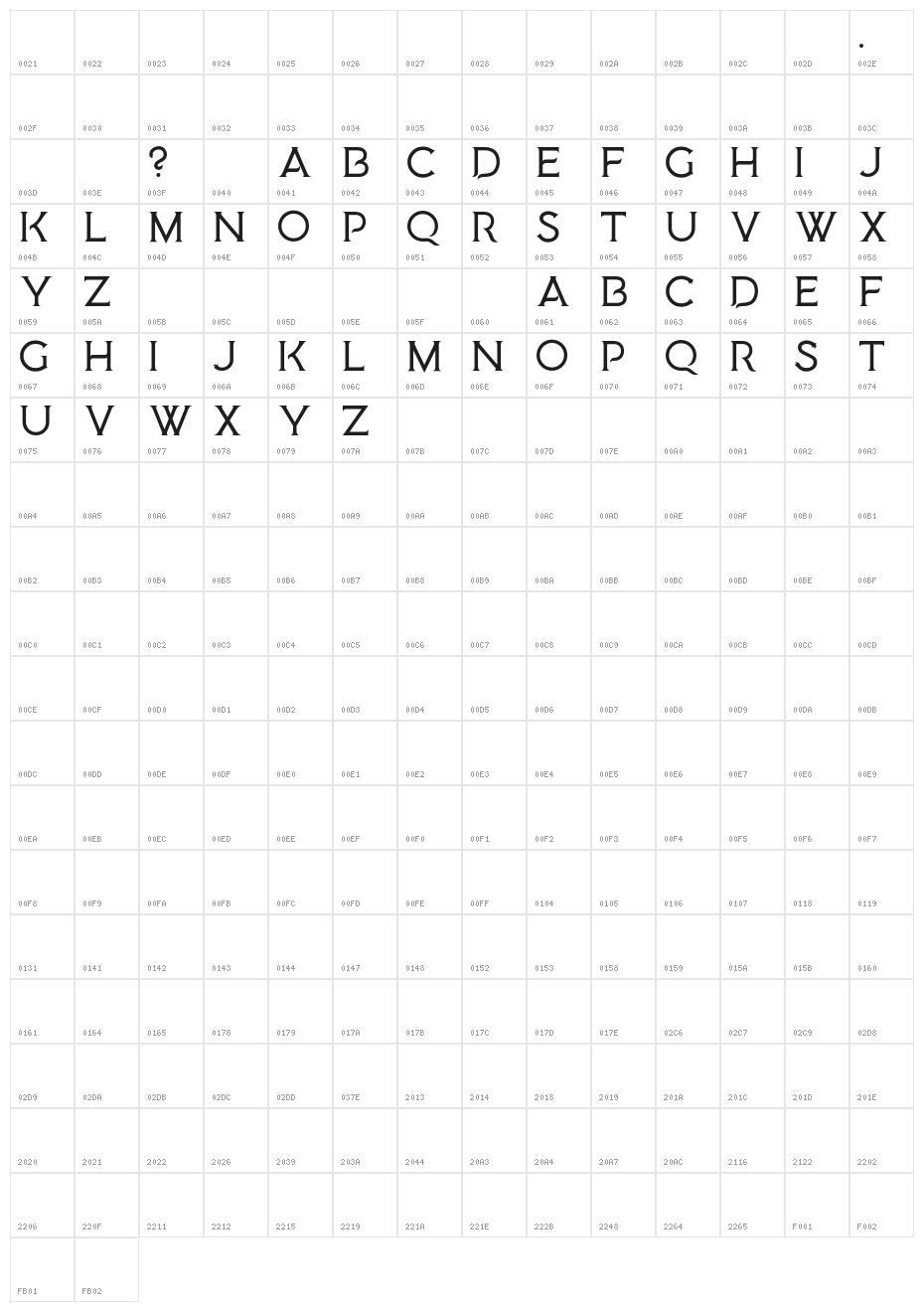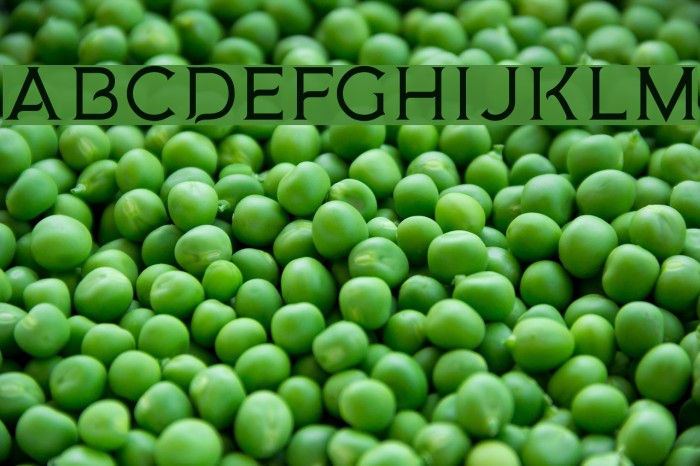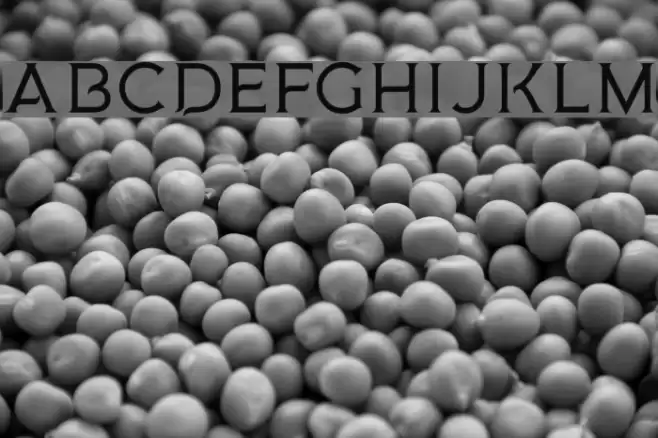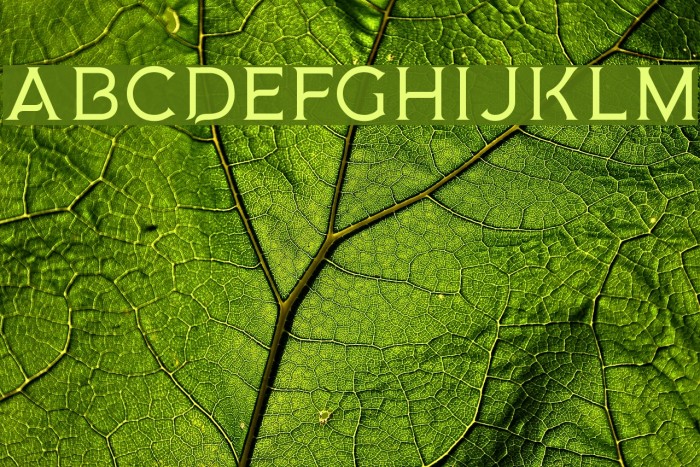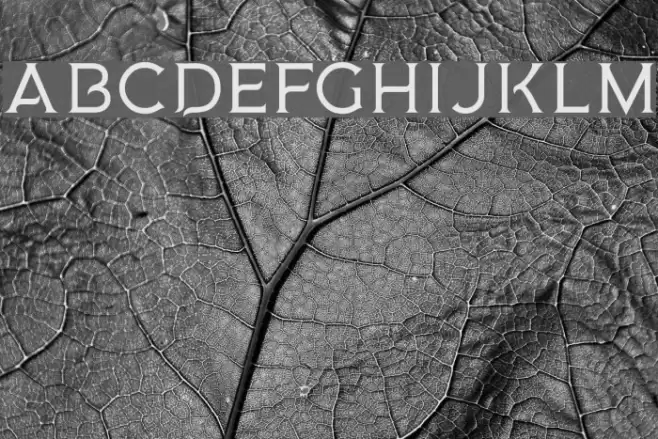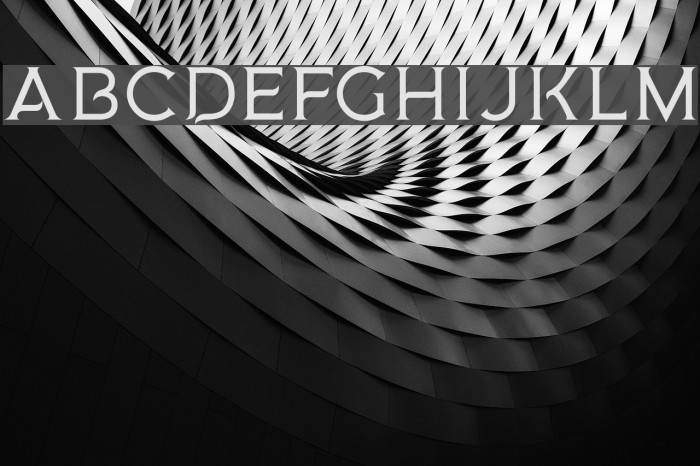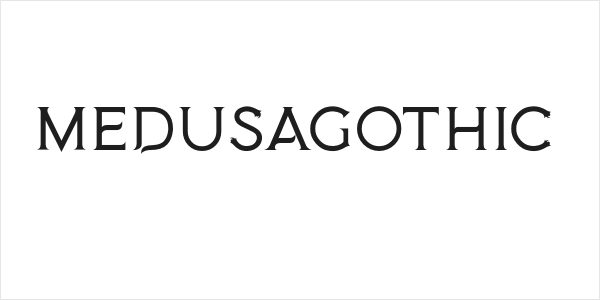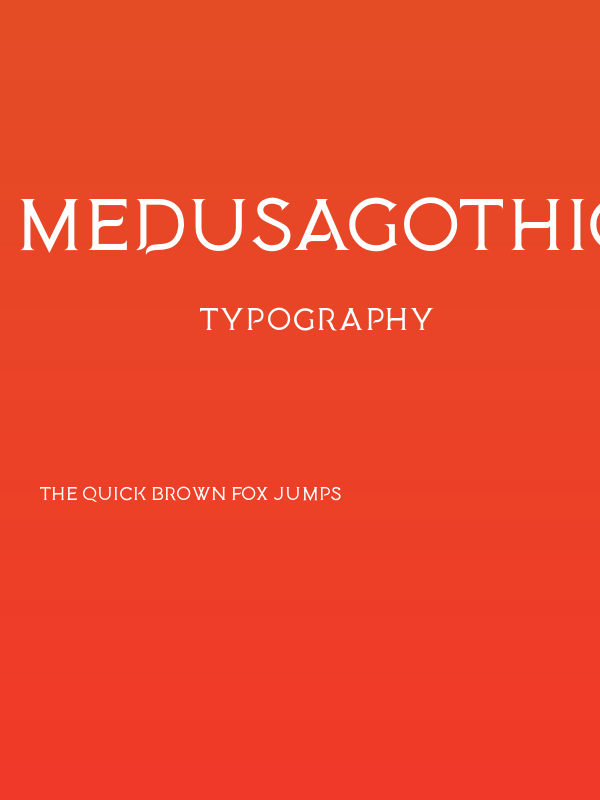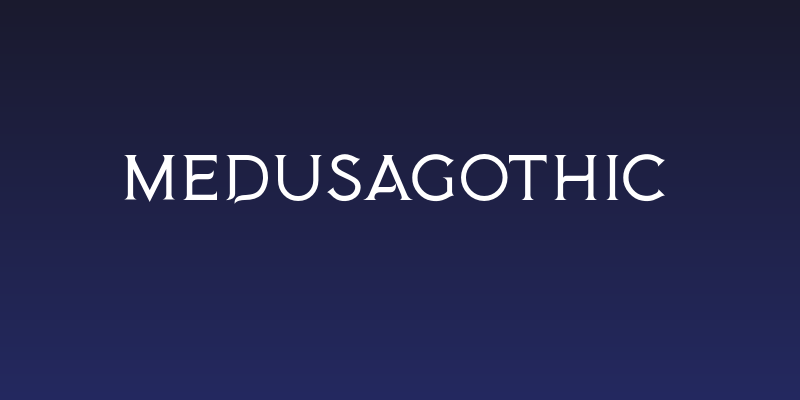
MedusaGothic Font
MedusaGothic Description
This font features a unique blend of gothic and modern elements, characterized by sharp, angular serifs and a bold presence. The uppercase letters exhibit a distinct flair with pointed edges and a slightly condensed form, giving them a dramatic and striking appearance. The design is consistent across the alphabet, maintaining a cohesive look that is both elegant and imposing. The font's style is reminiscent of medieval script yet incorporates contemporary design elements, making it versatile for various creative applications.
| Overall Style | Modern Gothic |
| Proposed Projects | Ideal for branding, posters, book covers, and any project requiring a dramatic and bold typographic statement. |